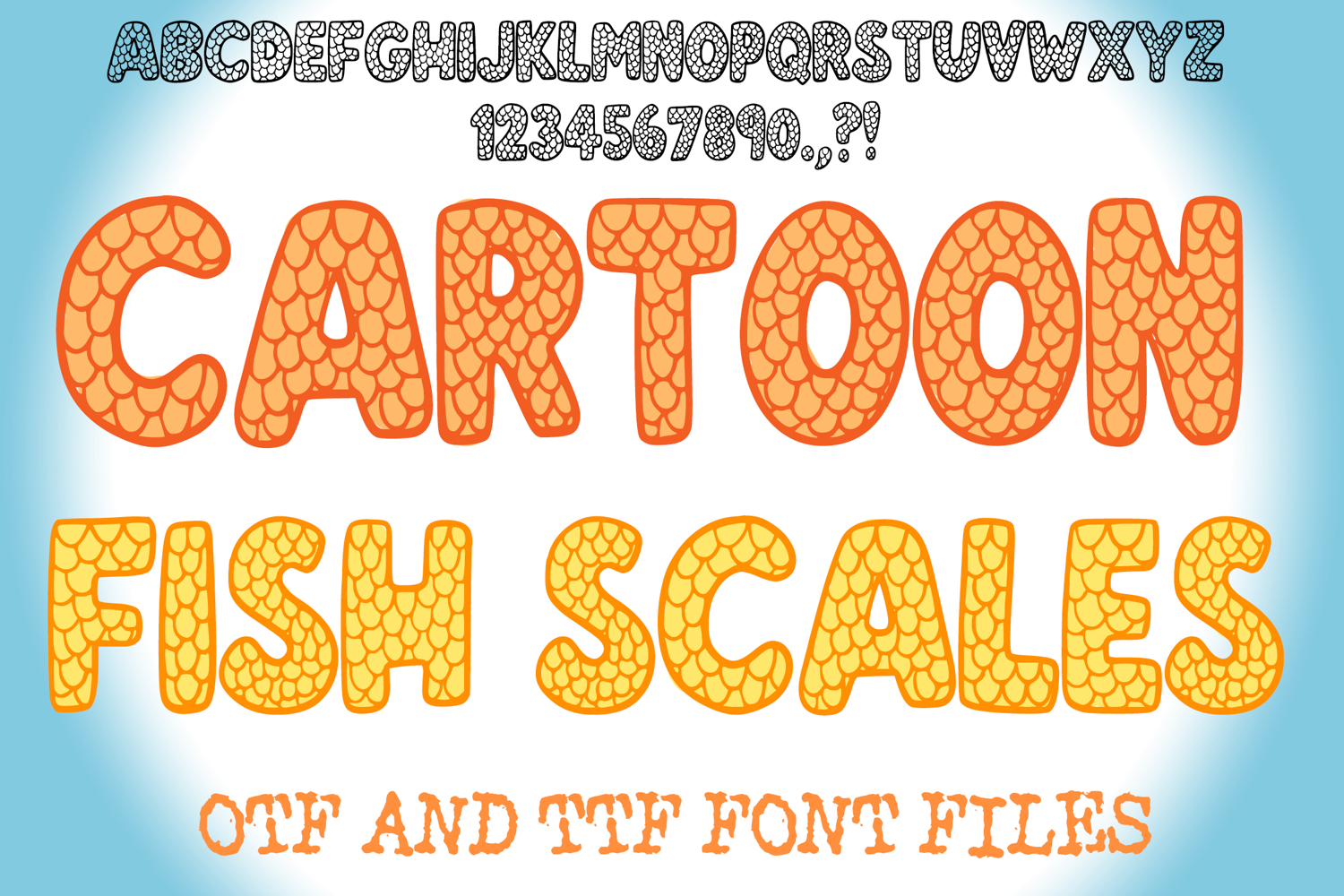
Cartoon Fish Scales Alphabet Lettering ABC Text Font OTF
Dive into a sea of playful creativity with Cartoon Fish Scales Font! This utterly charming typeface brings the vibrant, shimmering texture of fish scales to life in a fun, bubbly, and animated style. It's more than just a font; it's an underwater adventure in typographic form, designed to infuse your projects with a touch of aquatic whimsy, unique texture, and undeniable visual charm!
Each character in Cartoon Fish Scales Font is crafted with a plump, rounded outline, with its interior meticulously filled with a cheerful, interlocking fish scale pattern. This unique and eye-catching visual effect makes it an ideal choice for children's books, aquarium branding, ocean-themed parties, playful apparel designs, summer camp promotions, or mermaid-themed events.
But the magic doesn't stop there! Change the color and you can easily create other fantastical creatures like dragons, mystical mermaids, or even dinosaurs, making this font incredibly versatile for all your animal-themed or fantasy designs.
Whether you're creating lively event promotions, designing adventurous product packaging, crafting exciting social media posts for nature or kids' brands, or adding a whimsical touch to digital art, this font will bring an undeniable sense of fun, originality, and a vibrant, energetic aesthetic to your work. Its clear yet bubbly forms ensure readability while delivering a memorable visual experience.
If you're looking to infuse your designs with a sense of playful adventure, charming texture, and an undeniable touch of the ocean and beyond, Cartoon Fish Scales Font is your ultimate tool. Make a splash with your creativity!